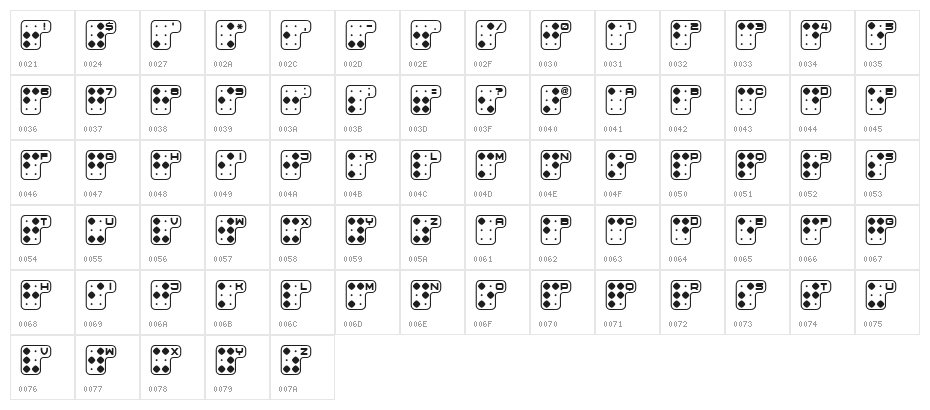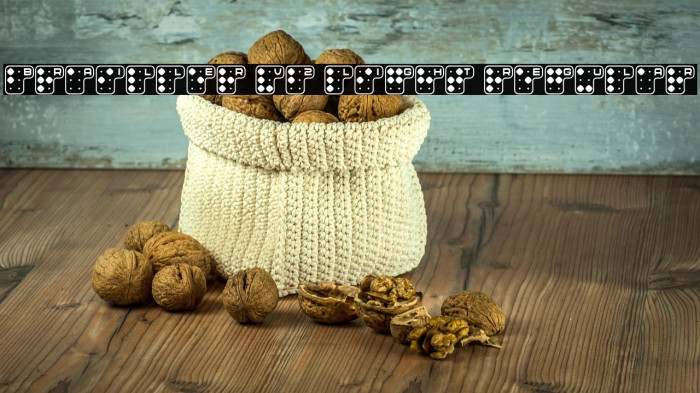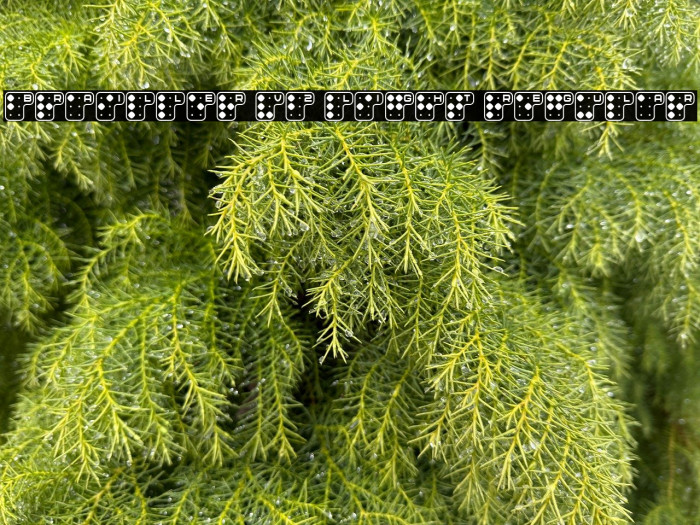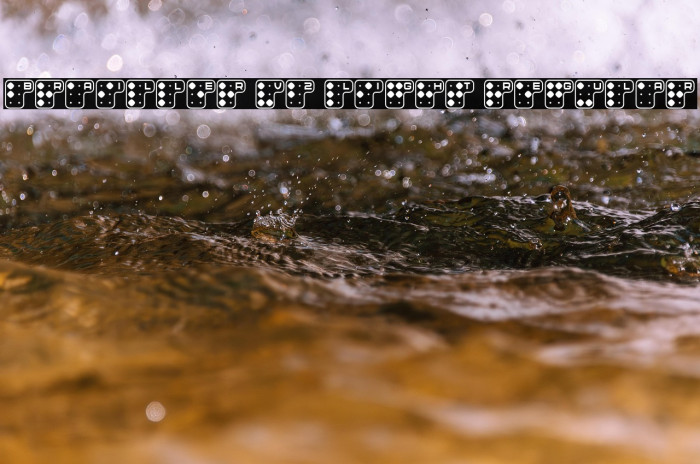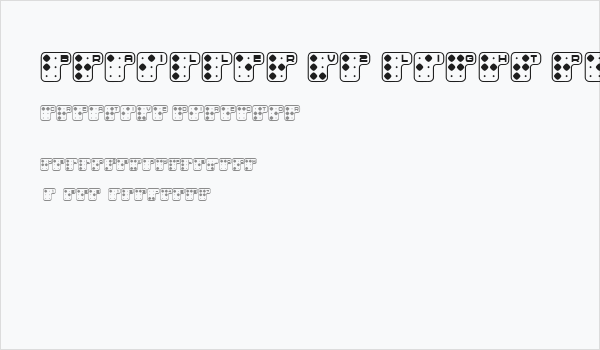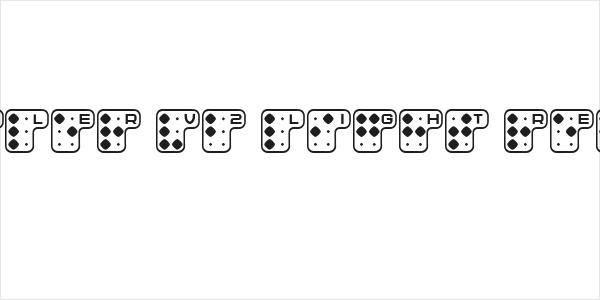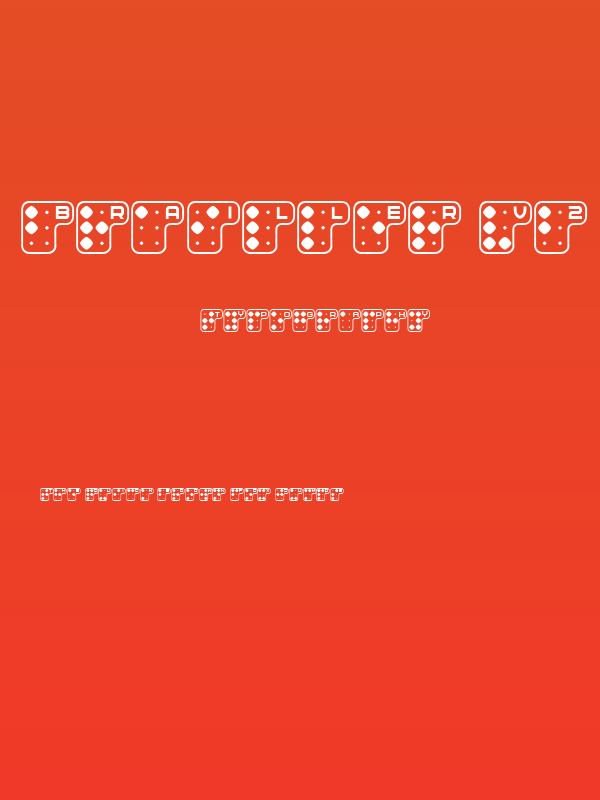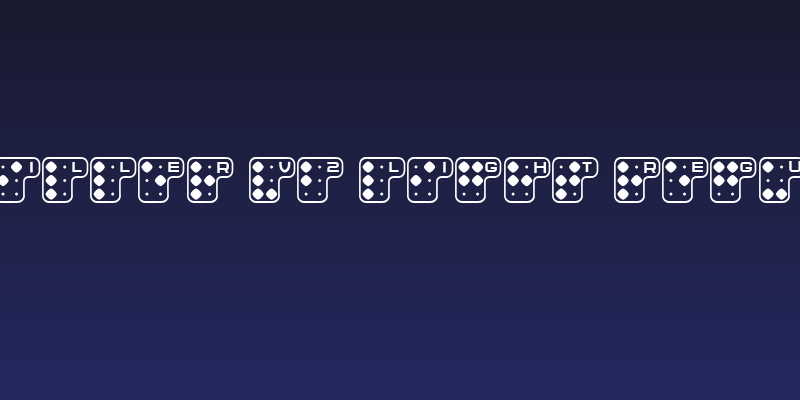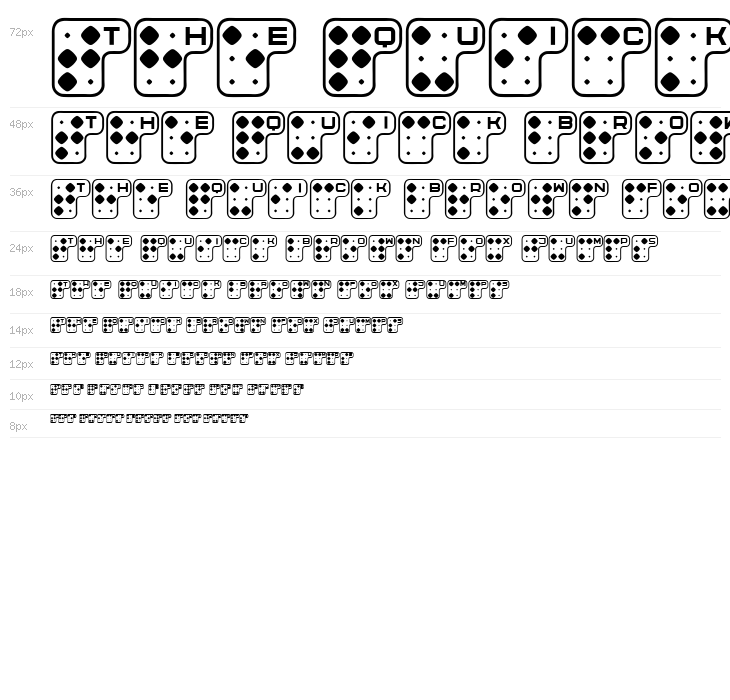
Brailler V2 Light Regular Font
Brailler V2 Light Regular Description
This font is a unique and innovative design that mimics the appearance of Braille characters. Each letter and number is represented by a series of dots within a rectangular shape, resembling the tactile writing system used by visually impaired individuals. The characters are evenly spaced and maintain a consistent size, providing a uniform and cohesive look. The style is modern and functional, with a playful twist that makes it suitable for creative projects. The font's distinct appearance makes it stand out, offering a fresh take on traditional typography.
| Use Case | Logos, Educational materials, Creative projects |
| Proposed Projects | Ideal for educational materials, accessibility-focused designs, creative branding, and unique graphic projects. |